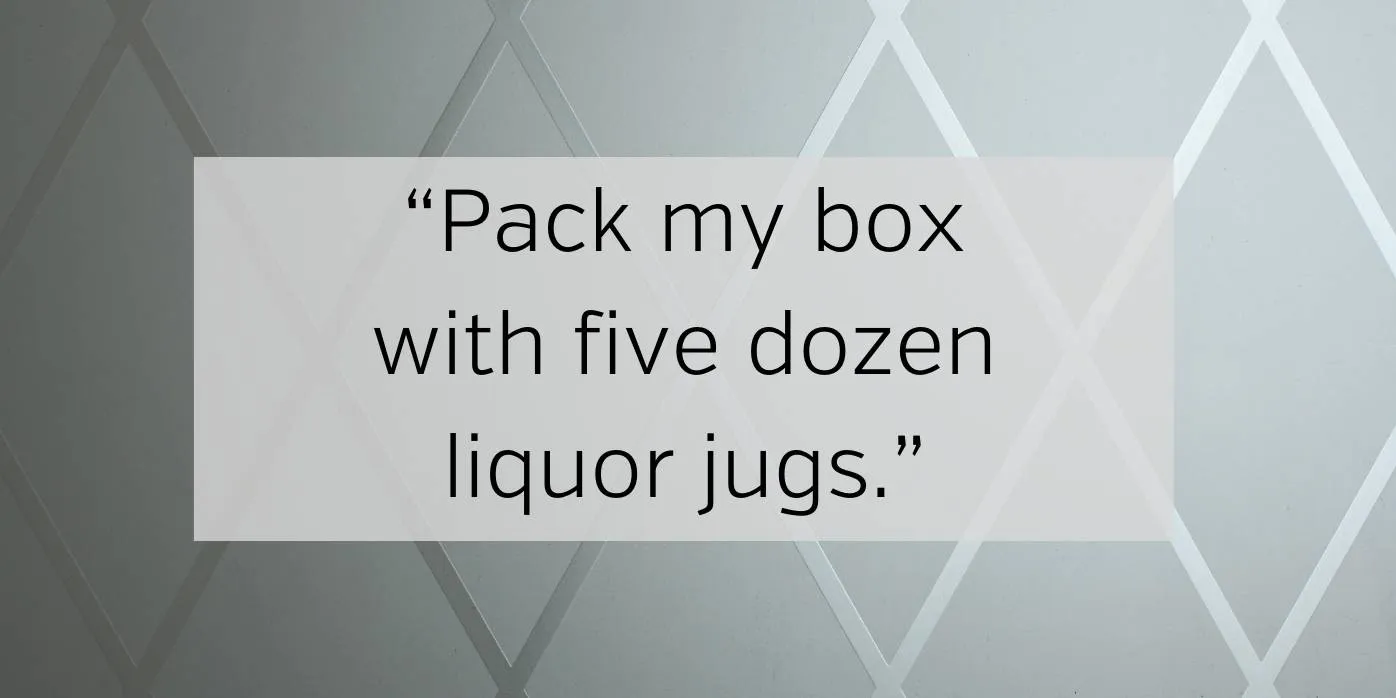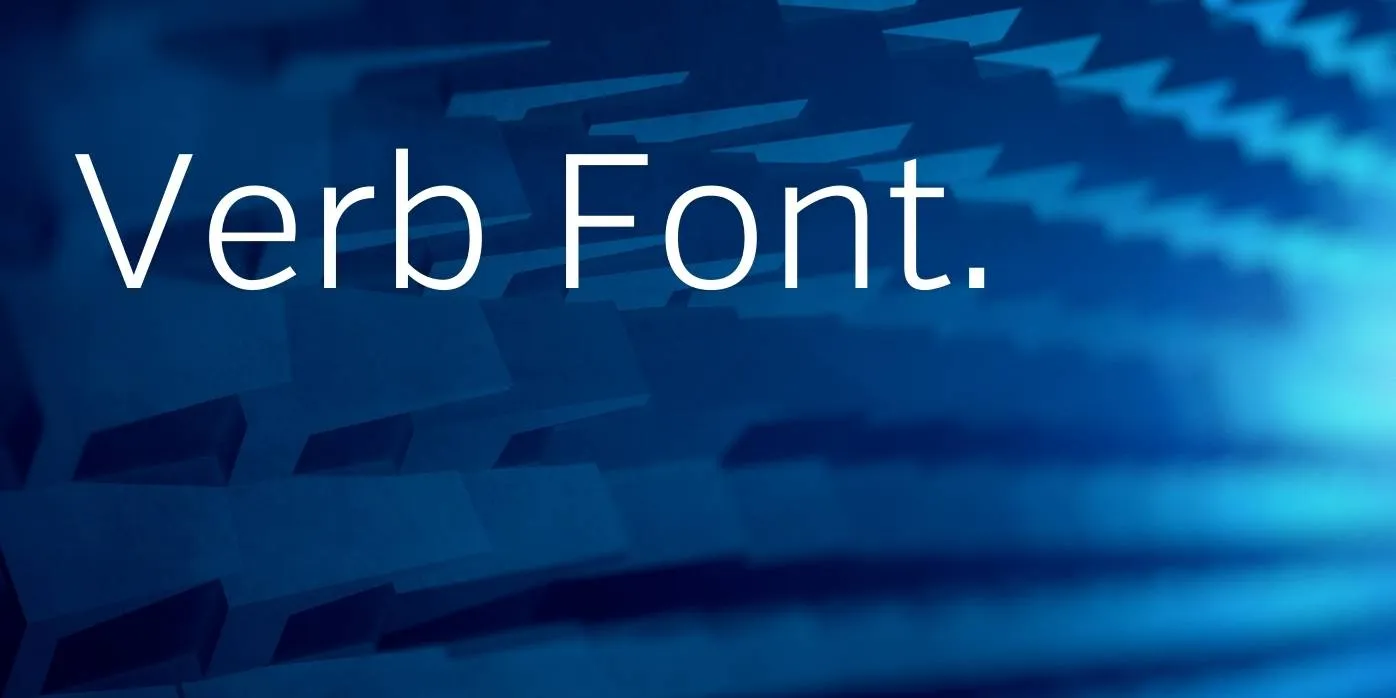
Verb Font
Here, we are consulting on the very amazing and cozy typeface that is famous with the name Verb Font. This awesome font family was published and designed by a very famous designer Ryan Martinson. This stylish font belongs to the Sans-Serif typeface. This classy font was released firstly for the public in the year 2012 by the very famous  Yellow Design Studio.
This is a very famous font that comes in 72 strong and unique styles. Also, this tremendous font family is available in special weights almost equal to Nine. Some of its special weights are Extra, Ultra, And Regular. These important weights and styles increase its overall performance.
Its copy and paste function is best. Fira Sans Font is one the most popular and similar to this classic typeface. This amazing Font is consists of more than 400 common and stylish characters like few of its important characters are Numerals, symbols, icons,upercase and lowercase, and many others. This staggering font also contains more than 400 unique Glyphs.